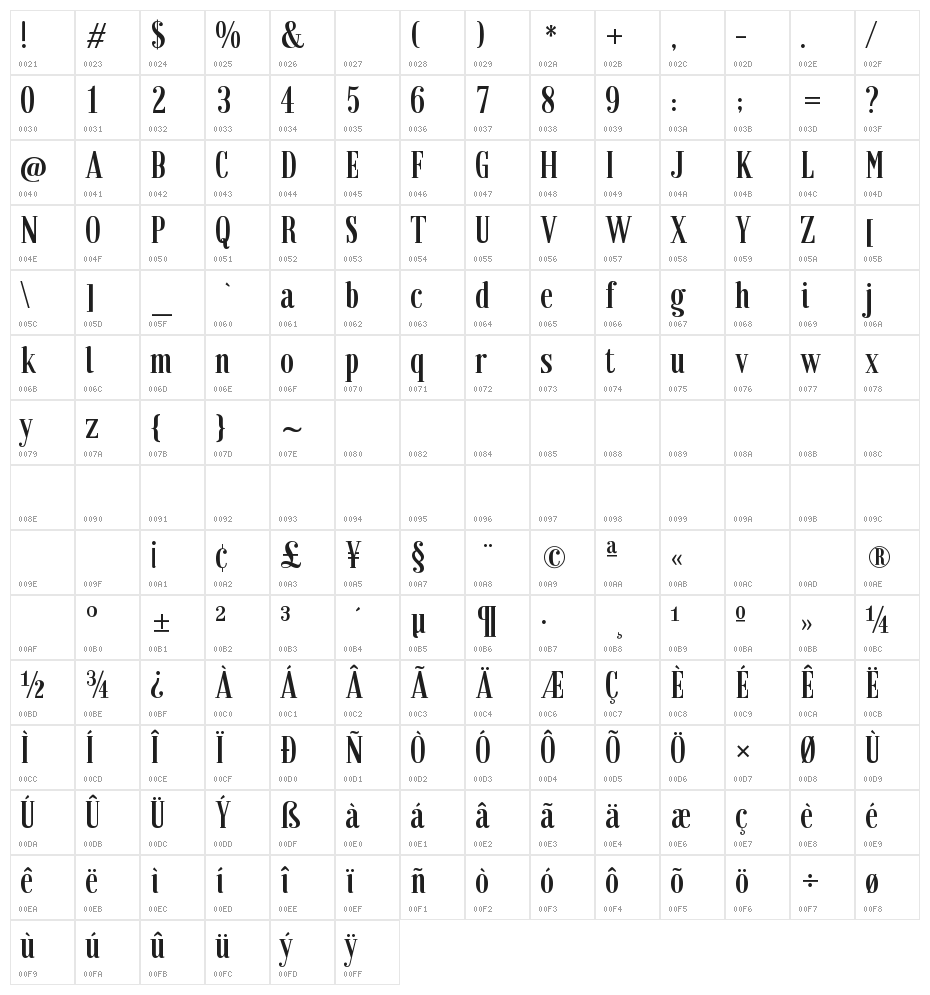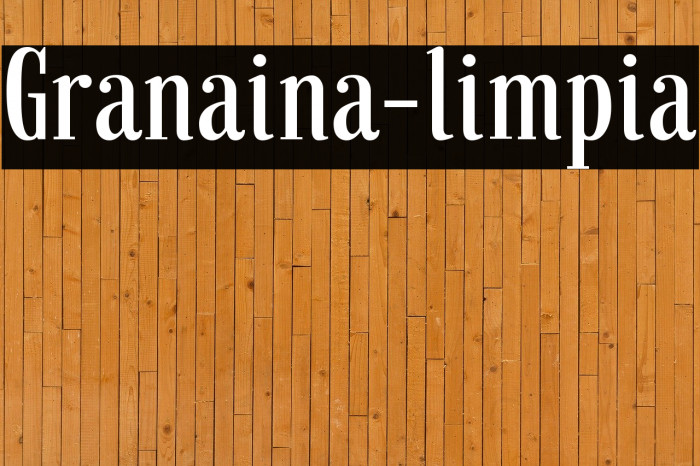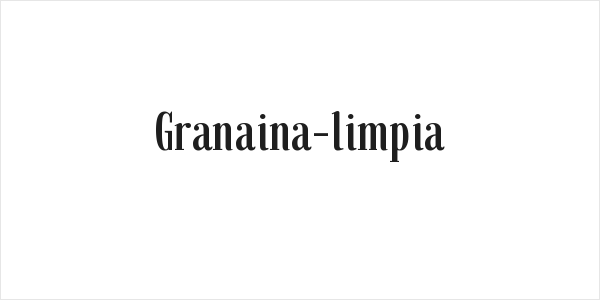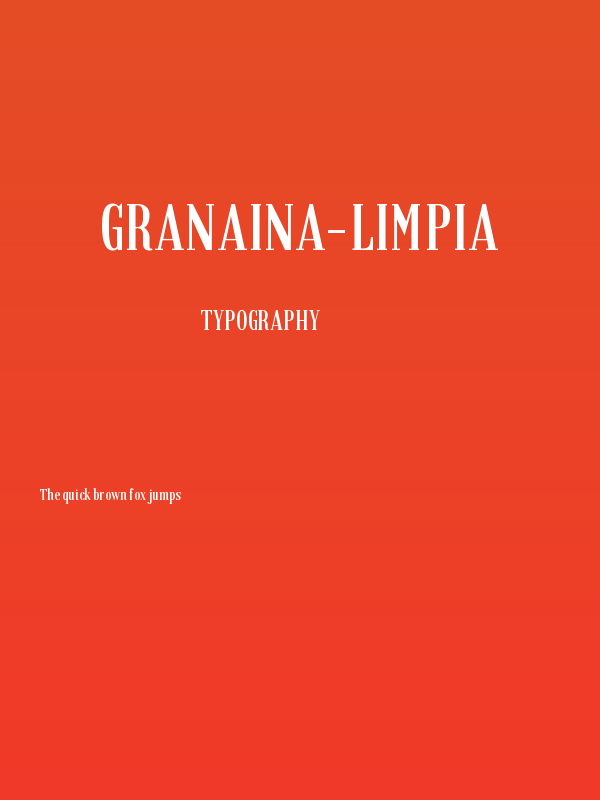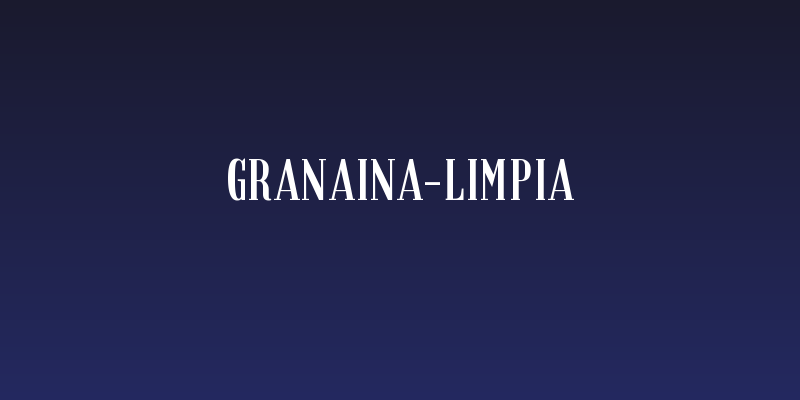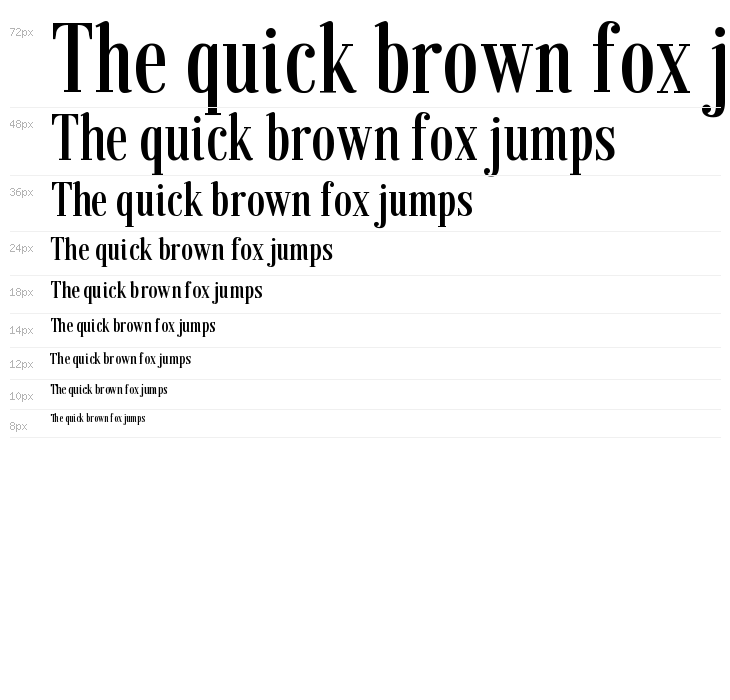
Granaina-limpia Font
This font exhibits a classic serif style with high contrast between thick and thin strokes, giving it an elegant and sophisticated appearance. The serifs are pronounced and slightly curved, adding a touch of refinement. The uppercase letters are tall and commanding, while the lowercase letters maintain a consistent and balanced form. The numerals are clear and distinct, making them easily readable. Special characters are well-integrated, maintaining the overall aesthetic. This font is versatile, suitable for both formal and creative applications, offering a timeless appeal.
Granaina Font is a double typeface inspired by the Granada (AndalucΓa-Spain) street signals which are made of pottery. - Personal-use only. For commercial use please contact owner.
| Proposed Projects | Ideal for editorial design, book covers, formal invitations, and branding projects that require a touch of elegance. |